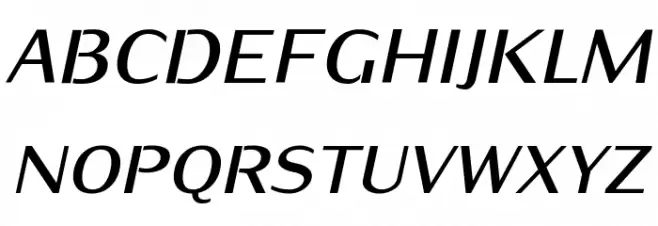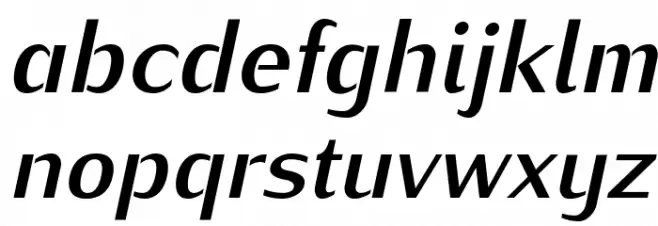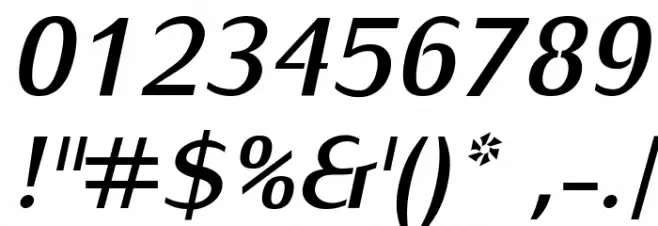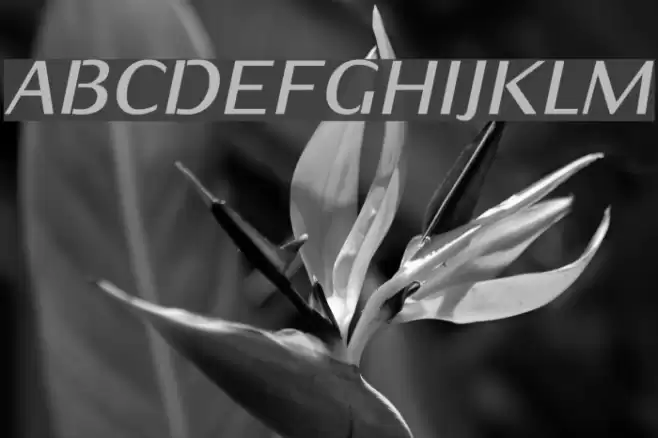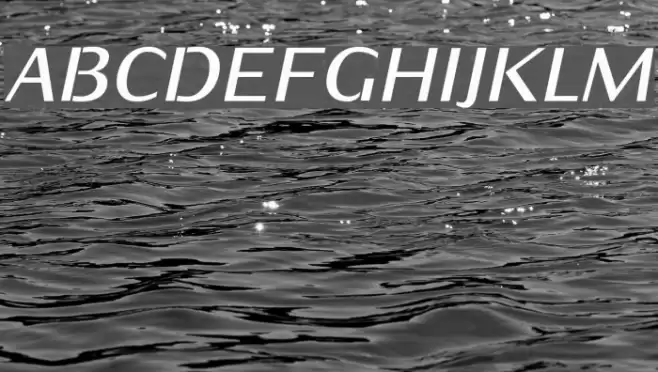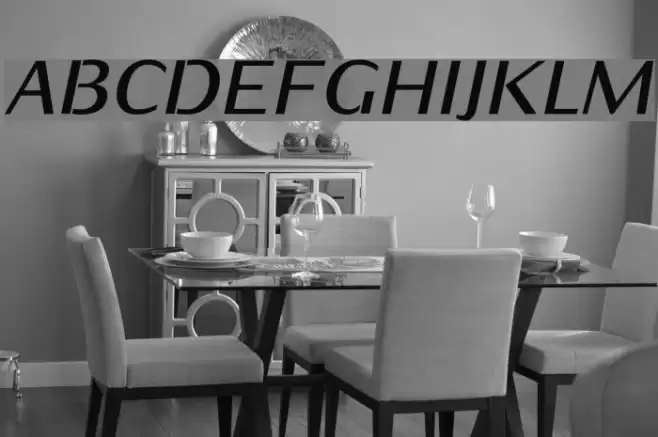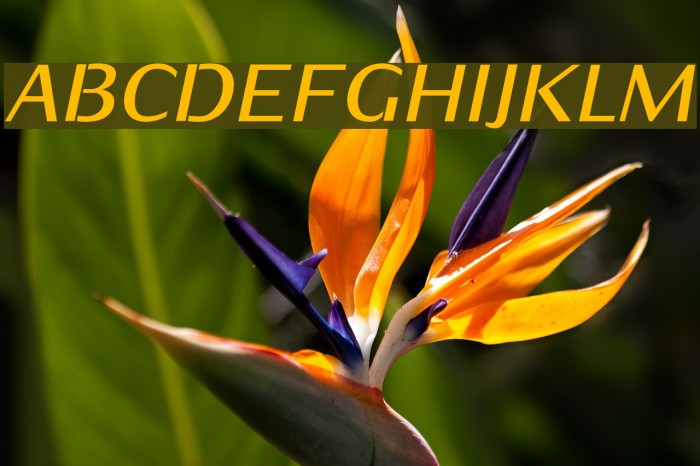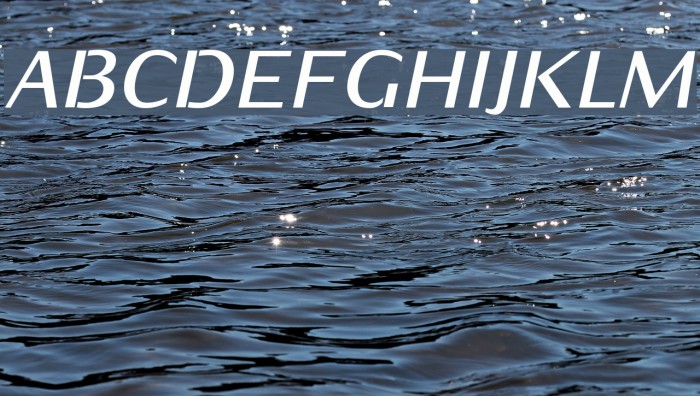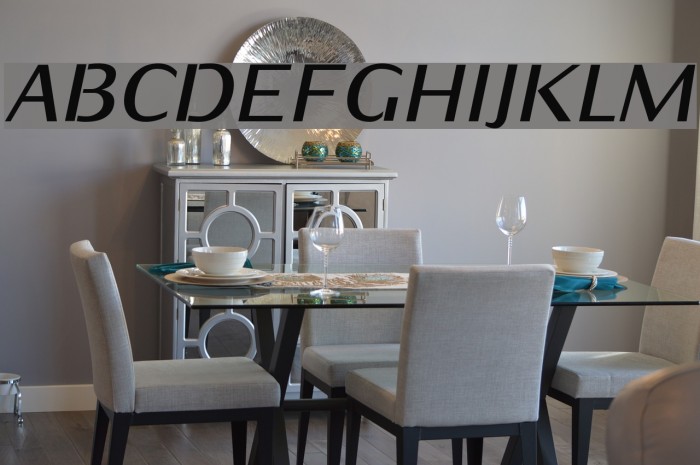
Kurier-BoldItalic
This font exhibits a bold and italicized style, characterized by its strong, slanted letterforms that convey a sense of movement and dynamism. The uppercase letters are tall and commanding, while the lowercase letters maintain a consistent flow with smooth curves and clean lines. The numerals are clear and distinct, ensuring readability. Special characters are well-integrated, maintaining the overall aesthetic. The font's design is modern yet versatile, making it suitable for a variety of applications where emphasis and style are desired.
A bold, italicized font with dynamic and modern letterforms.
- Proposed Projects: Ideal for branding, advertising, and editorial design where a bold statement is needed.
- Use Case: Headlines, Logos, Advertising